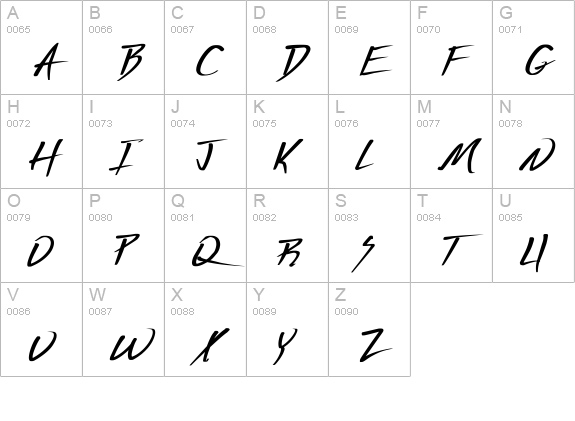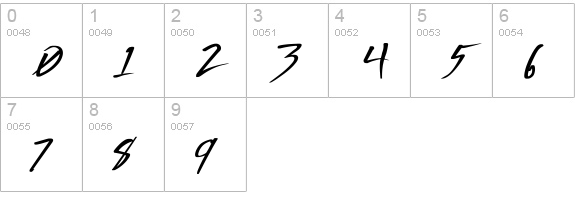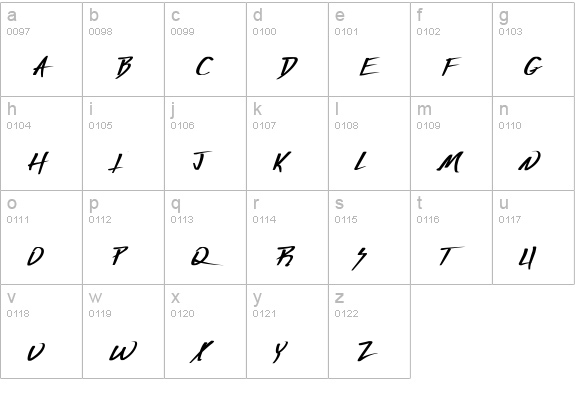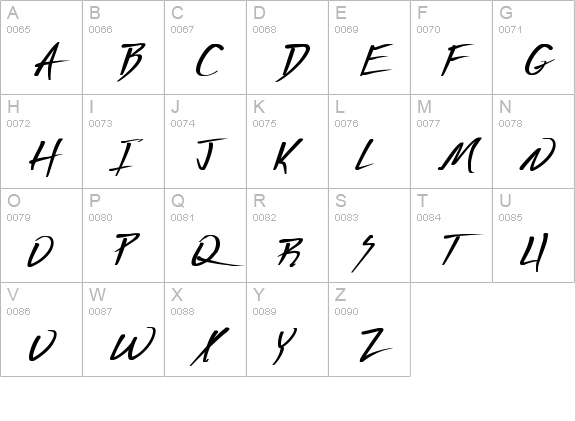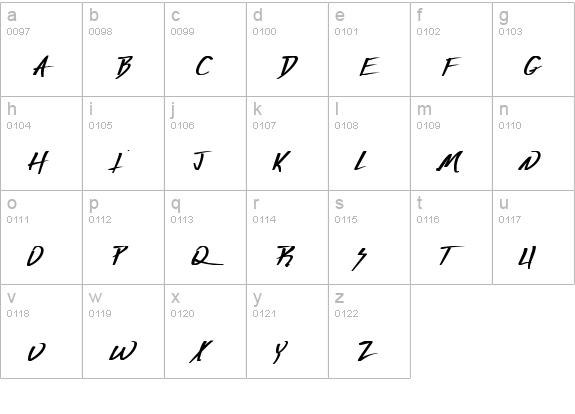
Vecker Bold Font Details
Vecker Bold is a strong, high-contrast variant in the Vecker typeface family \xE2\x80\x94 well suited to headlines, attention-grabbing titles, and strong calls-to-action.
Vecker Bold font is a stunning display font that exudes power, elegance, and modernity. Its strong, bold lines demand attention and make a powerful statement in any design project. Whether you're creating eye-catching headlines, striking logos, or captivating posters, Vecker Bold is the perfect choice to make your message stand out. This font is not only visually striking, but it also offers a seamless reading experience. Its well-balanced letterforms ensure readability, even at smaller sizes, making it suitable for both print and digital applications. Each character has been carefully crafted to maintain legibility, while still retaining its unique personality. One of the best things about Vecker Bold font is that it is free. Yes, you read that right! This remarkable font is available to download for free at FontsMarket.com. Now you can enhance your designs without worrying about breaking the bank. With Vecker Bold, you have the freedom to create bold and impactful designs without any limitations. Whether you're a professional designer or a creative enthusiast, Vecker Bold font is a must-have in your font collection. Its versatility allows it to be used in a wide range of design projects, from branding and advertising to web design and social media graphics. With its bold presence and modern aesthetic, Vecker Bold font is sure to elevate your designs to new heights. So why wait? Head over to FontsMarket.com and download Vecker Bold font today. Unleash your creativity and let this remarkable font add a touch of boldness and elegance to your designs. Remember, it's free, so you have nothing to lose and everything to gain. Take advantage of this opportunity and make your designs truly unforgettable with Vecker Bold font.